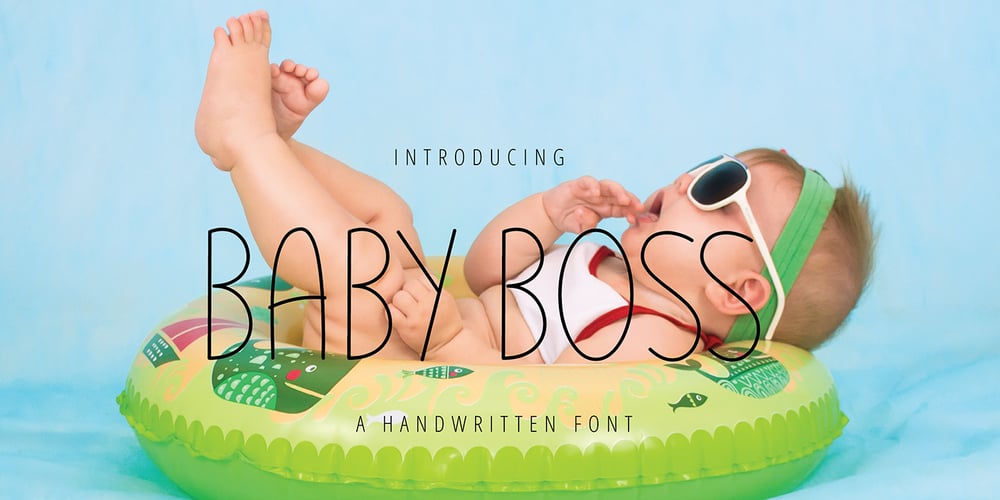
Baby Boss Font Family was designed by Andrea Zudip Aggasi and published by Nirmalagraphics. Baby Boss contains 1 styles and family package options. Baby Boss was inspired by the writing style of my brother who focused on learning to write and read. This font works well for children themed uses and has multi-lingual support.